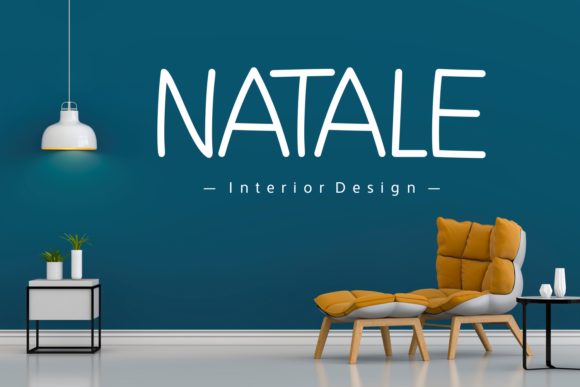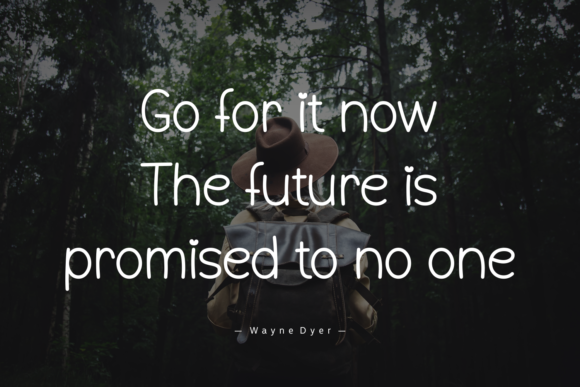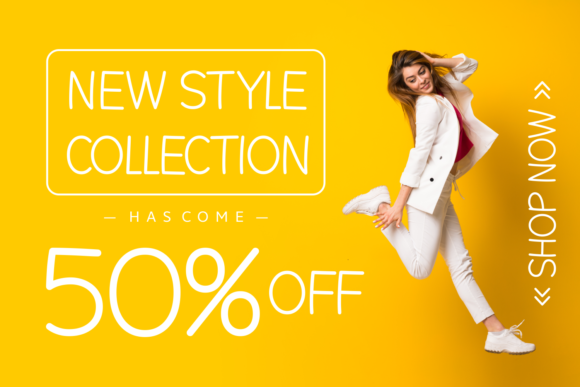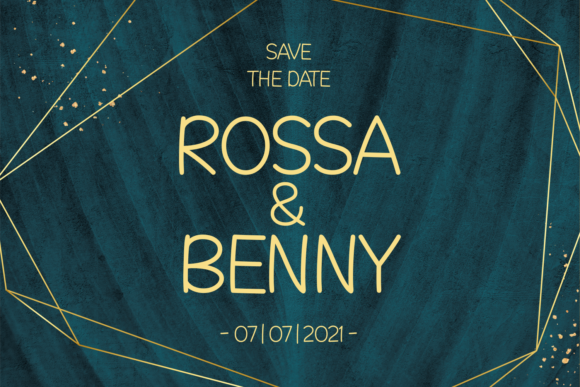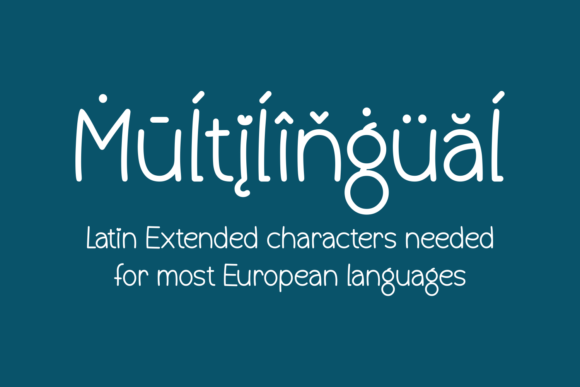
Bringove Font: Elevate Your Designs with a Thin, Cool, and Minimalist Handwritten Font
In the world of typography, a font can make or break a design. A well-chosen font can elevate a creation from ordinary to extraordinary, while a poorly chosen one can detract from the overall impact. For designers and crafters looking to add a touch of elegance and sophistication to their work, Bringove Font is an excellent choice. This thin, cool, and minimalist handwritten font is an incredibly versatile asset that can enhance any project, regardless of the topic or theme.
What is Bringove Font?
Bringove Font is a modern, handwritten font that is characterized by its delicate and airy feel. With its thin strokes and minimalist aesthetic, this font exudes a sense of simplicity and elegance. Bringove is perfect for designers who want to add a touch of sophistication to their work without overpowering the content. The font’s clean and crisp lines make it highly legible, even at small sizes, making it suitable for a wide range of applications.
Key Features of Bringove Font
- Thin and minimalist design: Bringove Font features delicate strokes that give it a light and airy feel.
- Cool and elegant aesthetic: The font’s modern and sophisticated look makes it perfect for designs that require a touch of refinement.
- Highly legible: Bringove Font is designed to be easy to read, even at small sizes, making it suitable for body text and headlines.
- Versatile: This font can be used for a wide range of projects, from branding and advertising to packaging and digital media.
Benefits of Using Bringove Font
So, why should designers and crafters choose Bringove Font for their projects? Here are just a few benefits of using this versatile font:
- Elevate your designs: Bringove Font can add a touch of sophistication and elegance to any project, making it perfect for designers who want to create high-end designs.
- Improve legibility: The font’s clean and crisp lines make it highly legible, even at small sizes, ensuring that your message gets across clearly.
- Increase versatility: Bringove Font can be used for a wide range of projects, from digital media to print materials, making it a valuable addition to your font library.
- Save time: With Bringove Font, you can create professional-looking designs quickly and easily, saving you time and effort.
How to Use Bringove Font
- Pair it with bold fonts: Combine Bringove Font with bold fonts for a striking contrast that adds visual interest to your designs.
- Use it for headlines and body text: Bringove Font is suitable for both headlines and body text, making it a versatile addition to your font library.
- Experiment with colors and textures: Bringove Font looks great in a variety of colors and textures, so don’t be afraid to experiment and find the perfect combination for your design.
In conclusion, Bringove Font is a thin, cool, and minimalist handwritten font that is perfect for designers and crafters looking to add a touch of elegance and sophistication to their work. With its delicate strokes, clean lines, and highly legible design, Bringove Font is an incredibly versatile asset that can enhance any project. Whether you’re working on a branding campaign, creating packaging, or designing digital media, Bringove Font is an excellent choice. So why not give it a try and see how it can elevate your designs?